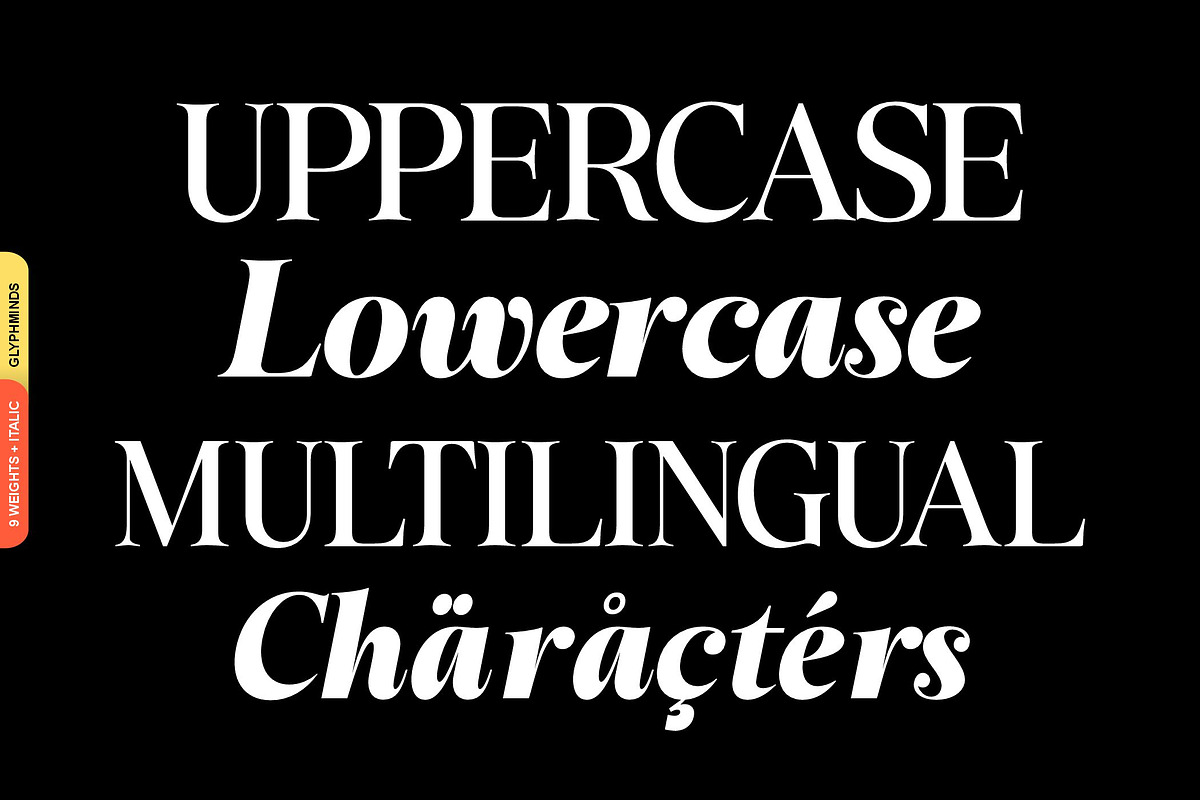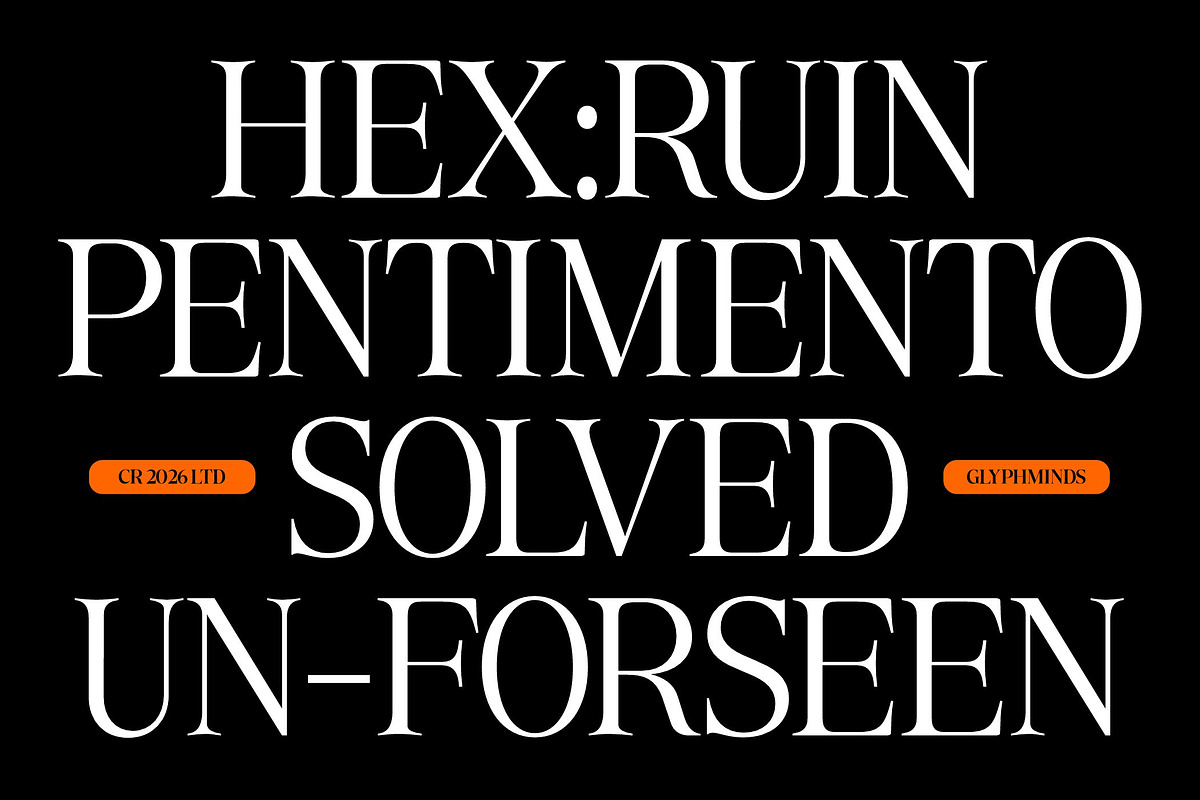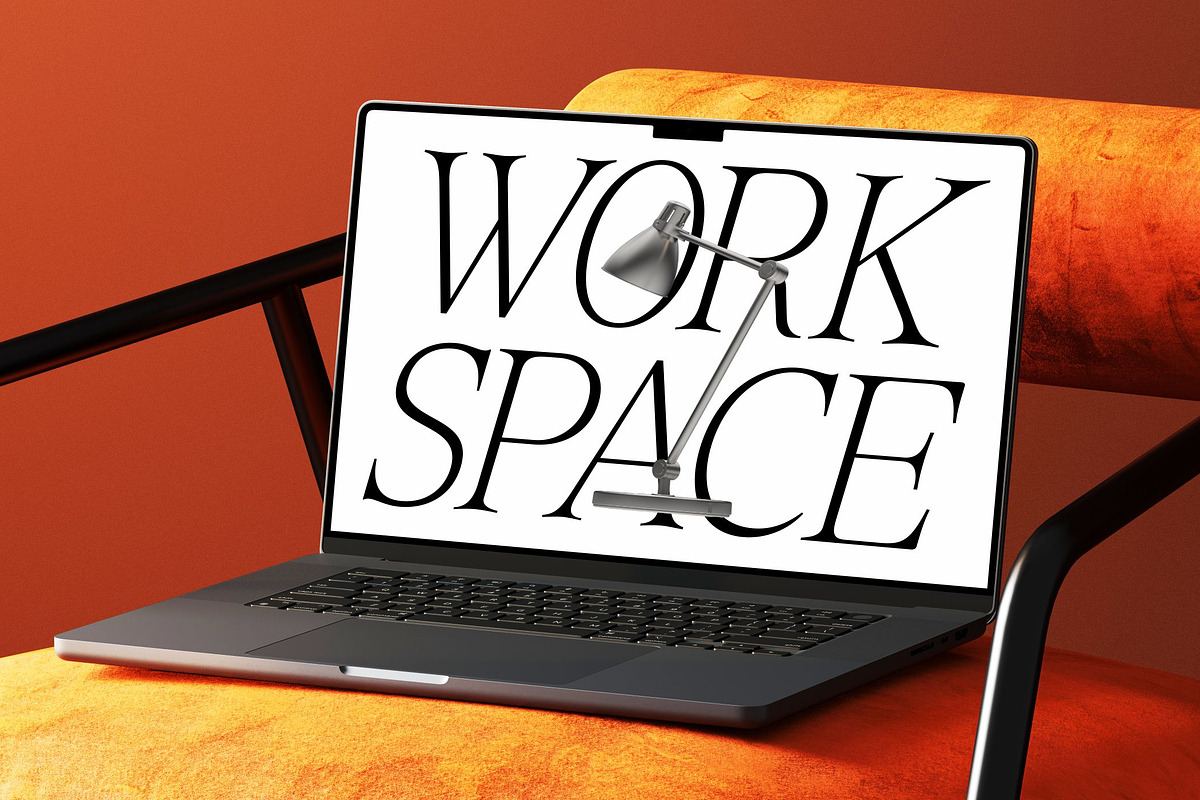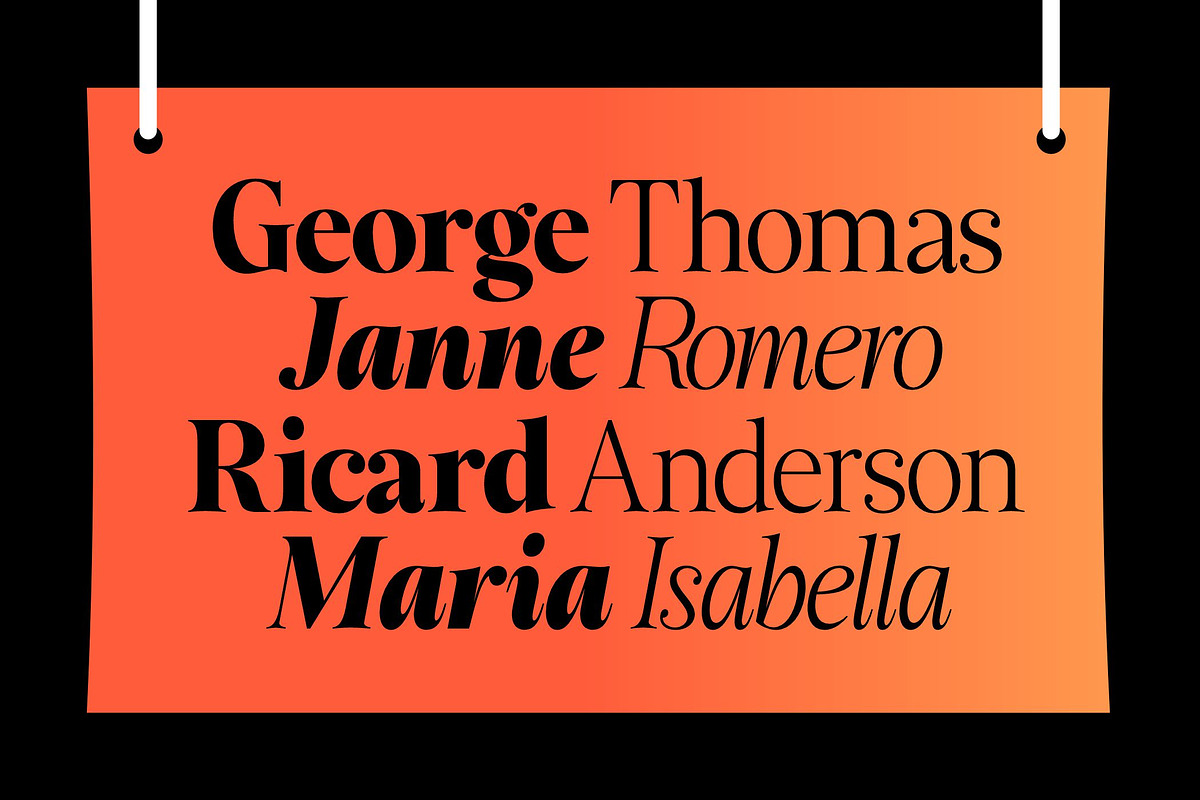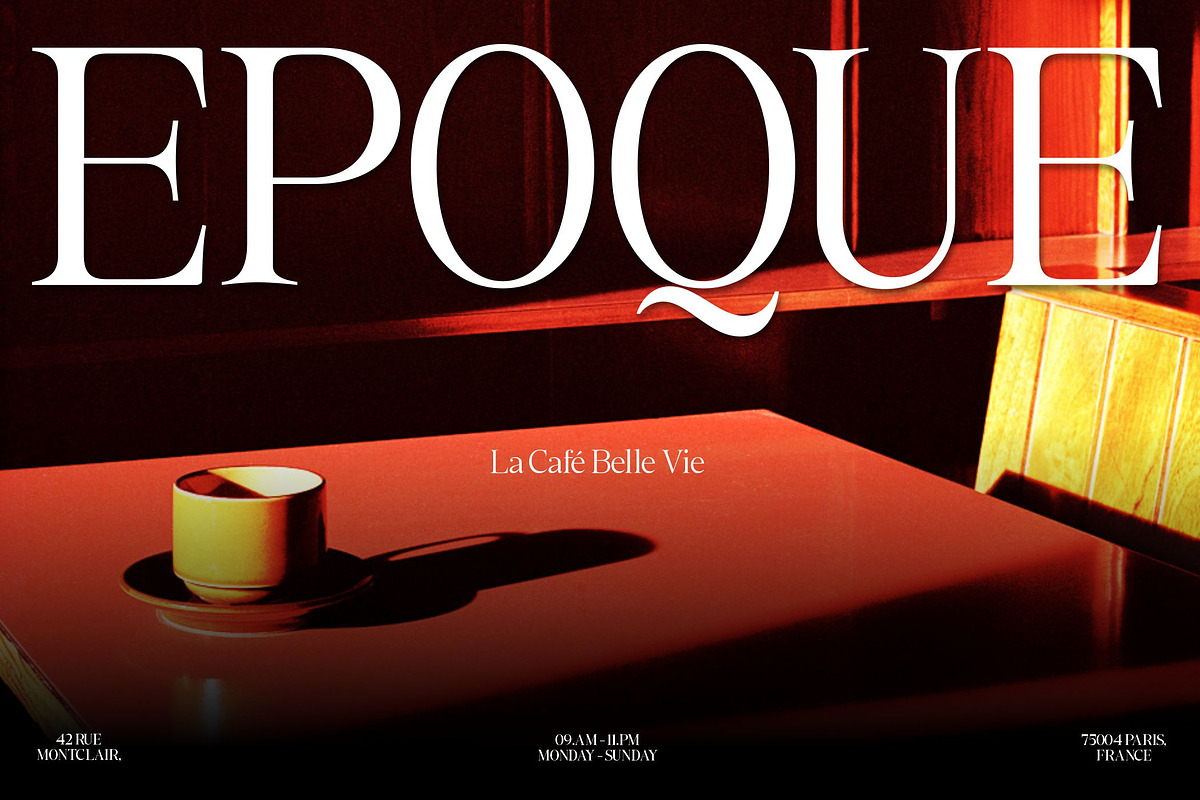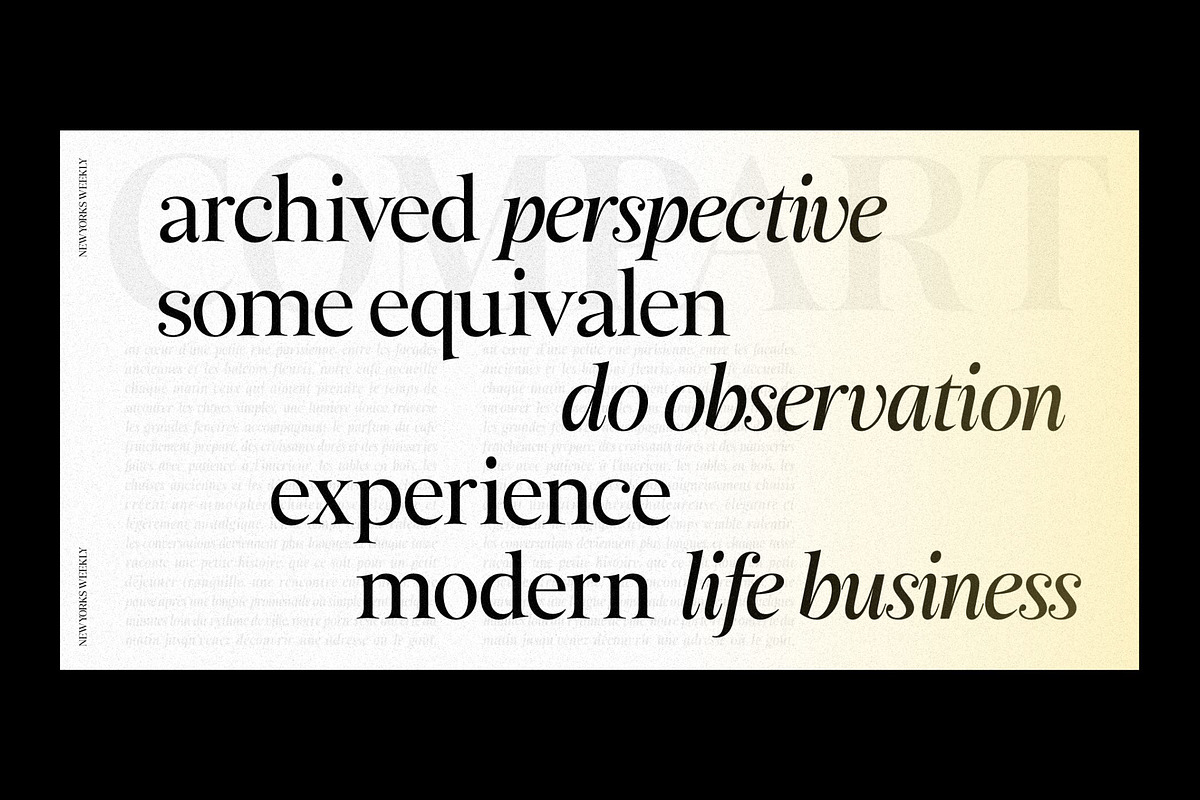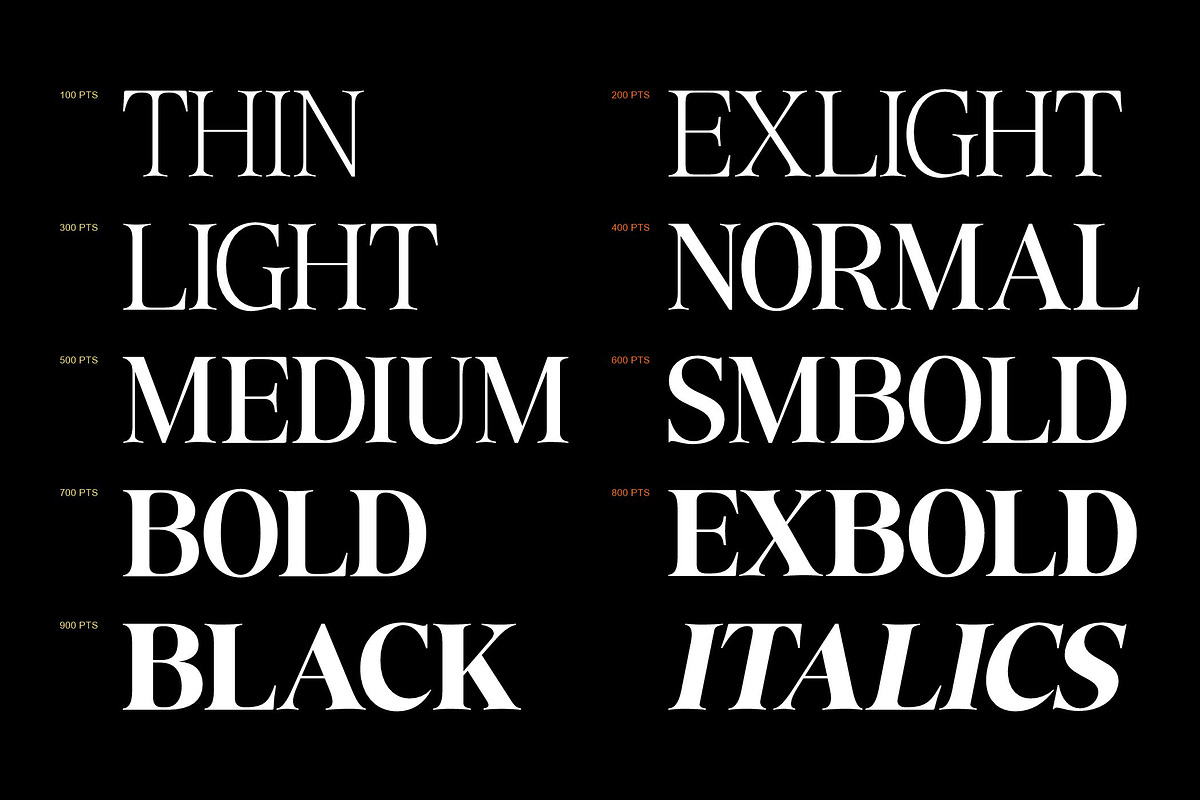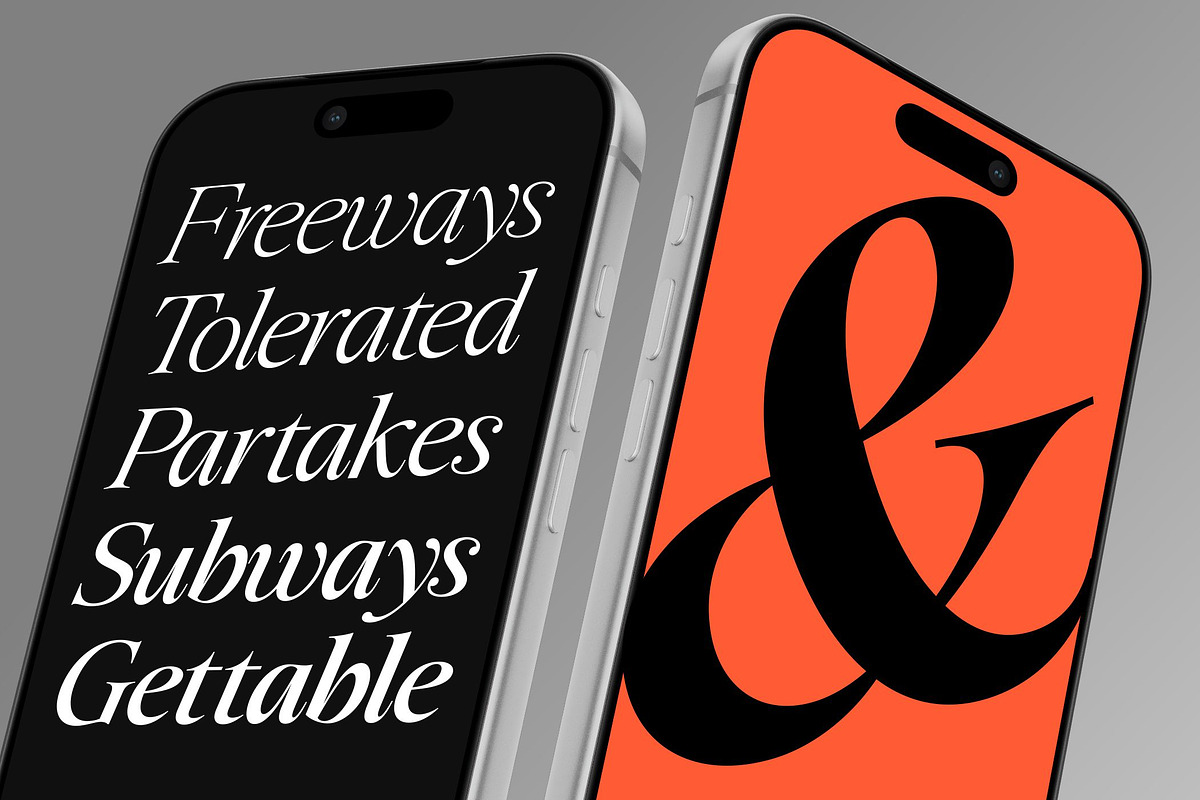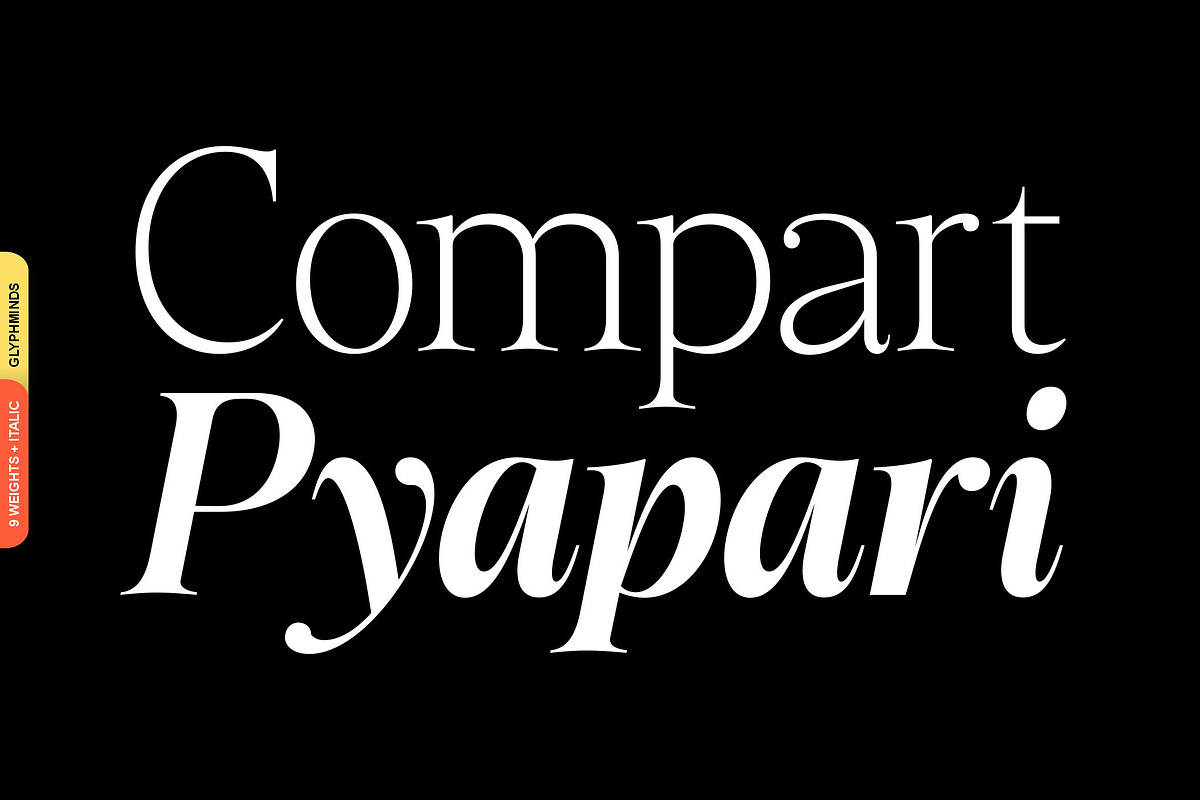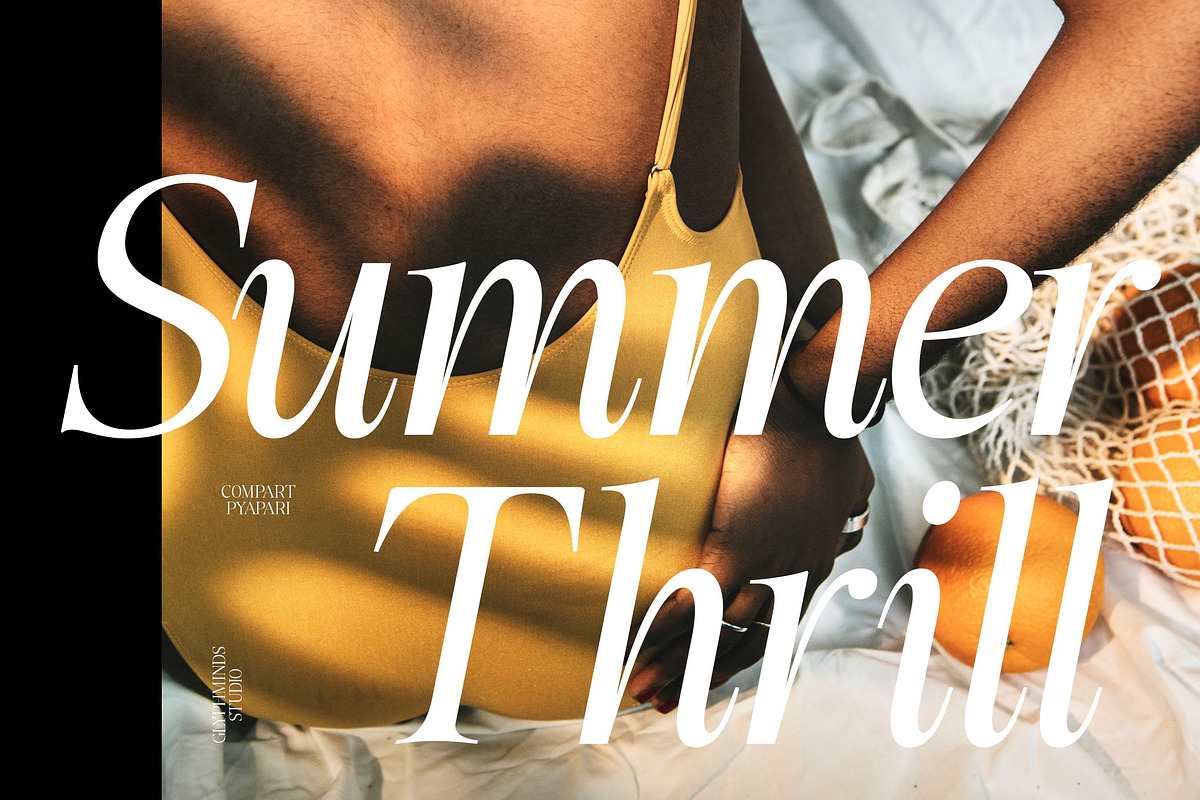
Compart Pyapari
Meet Compart Pyapari — a sophisticated serif typeface designed to make every word feel elegant, expressive, and unforgettable.
With its high-contrast strokes, refined serif details, graceful curves, and distinctive italic style, Compart Pyapari brings a luxurious editorial character to your designs. From fashion identities and beauty brands to sophisticated logos, magazines, packaging, and social media graphics, this typeface is built to create an immediate visual impression.
The family includes 9 weights + matching italics, giving you the flexibility to create everything from delicate, elegant headlines to bold and commanding typography.
Perfect for designers looking for a typeface with a fashionable, premium, contemporary, and artistic personality.
Fashion & luxury branding
Logo design
Editorial & magazine layouts
Beauty & cosmetics
High-end packaging
Posters & advertising
Social media branding
Invitations & stationery
Headlines & display typography
Creative campaigns
Compart Pyapari is made for designs that deserve to stand out.